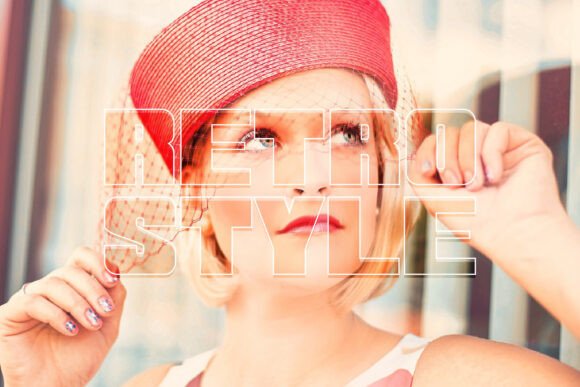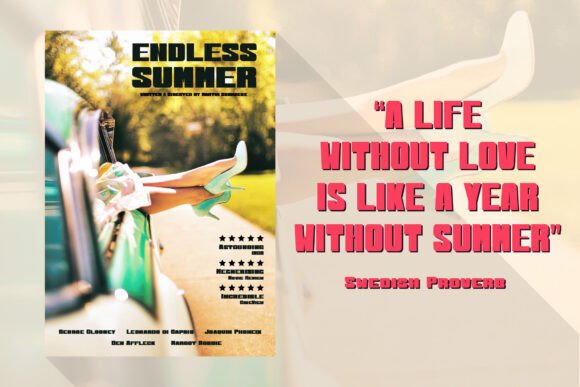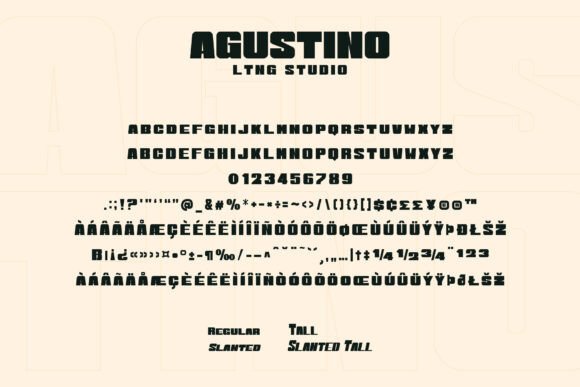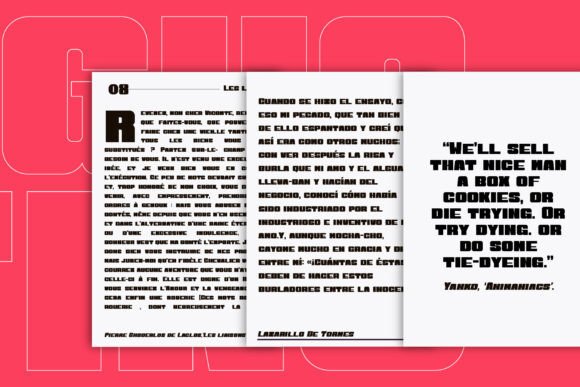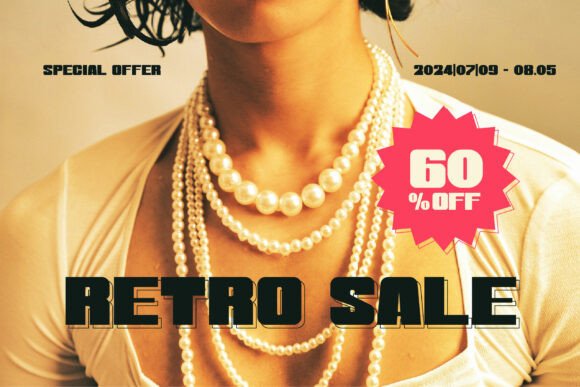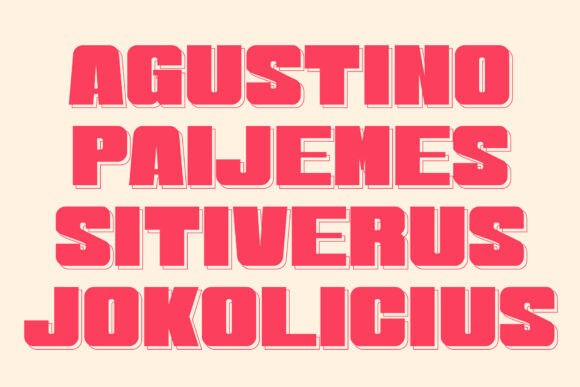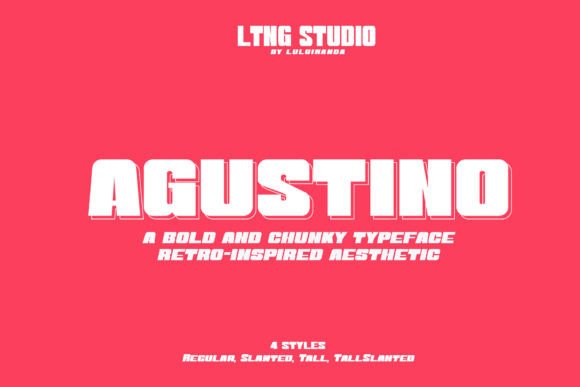
The Agustino Font: A Bold and Chunky Typeface for Impactful Designs
I still remember the design project that led me to discover the Agustino font. I was working on a branding project for a local coffee shop, and I needed a font that would make a statement. The client wanted something bold, eye-catching, and reminiscent of the classic diners and cafes from the 50s. After hours of scouring through font libraries, I stumbled upon Agustino, and it was love at first sight! ✨
An Honest Review of Agustino
- ✅ Bold and chunky design: Agustino’s blocky letterforms and clean geometric lines make it perfect for creating impactful headlines, logos, and branding materials.
- ✅ Versatile character set: The font includes uppercase and lowercase alphabets, numerals, punctuation, and a variety of special characters, making it suitable for diverse design needs.
- ✅ Multilingual support: Agustino supports extended Latin characters, making it a great choice for projects that require a commanding and stylish typographic presence in multiple languages.
- ✅ Timeless appeal: The font’s retro-inspired aesthetic has a timeless quality that makes it suitable for a wide range of design projects, from vintage-inspired branding to modern digital designs.
While Agustino is an excellent font, there are a few things to keep in mind: 🤔
- ⚠️ Limited font weights: Agustino is a bold font, and while it’s perfect for making a statement, it may not be suitable for body text or designs that require a range of font weights.
- ⚠️ Some letterform variations: As with any font, some letterform variations may not work well in certain contexts, such as all-caps headings or italic text.
The Story Behind Agustino
Agustino was designed by a talented typographer who’s passionate about creating fonts that are both functional and beautiful. The font was inspired by the classic typography of the 1950s and 60s, with a modern twist. The designer’s goal was to create a font that’s both bold and elegant, making it perfect for a wide range of design projects.
Q: What is the Agustino font?
A: Agustino is a bold and chunky typeface that exudes a strong, retro-inspired aesthetic. It’s perfect for creating impactful headlines, logos, and branding materials.
Q: What languages does Agustino support?
A: Agustino supports extended Latin characters, making it suitable for multilingual usage.